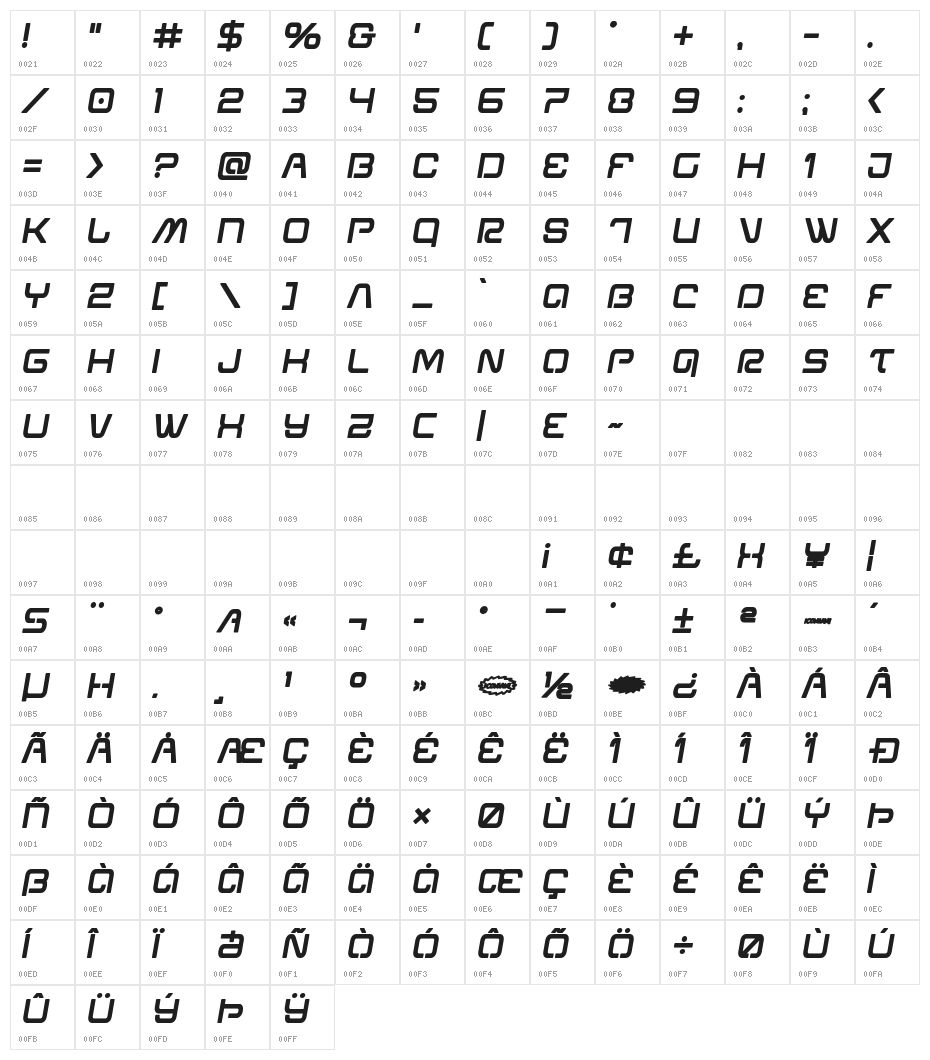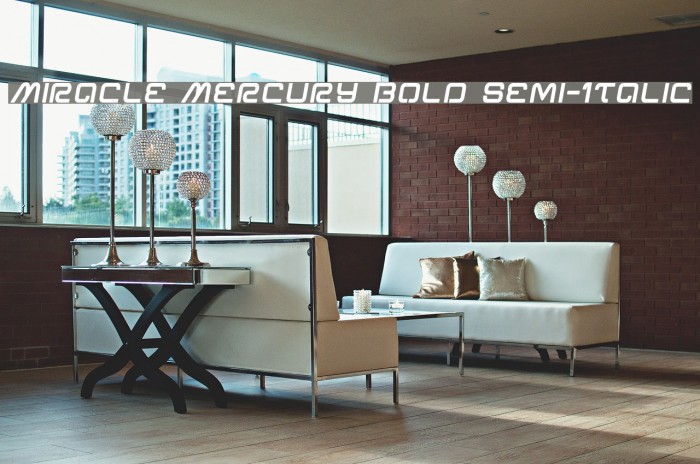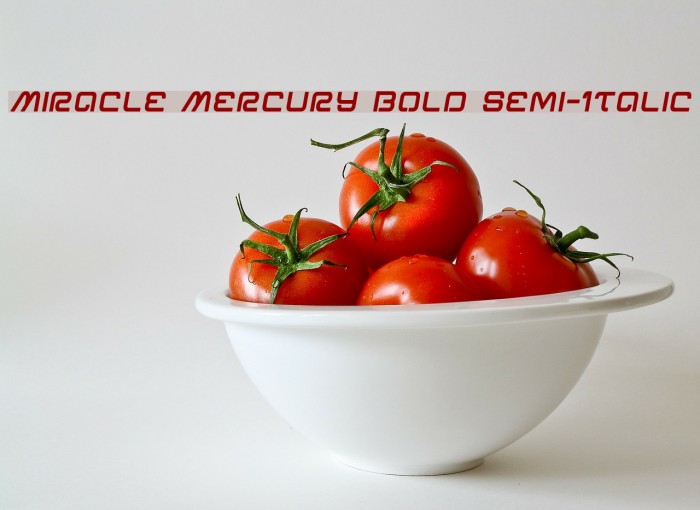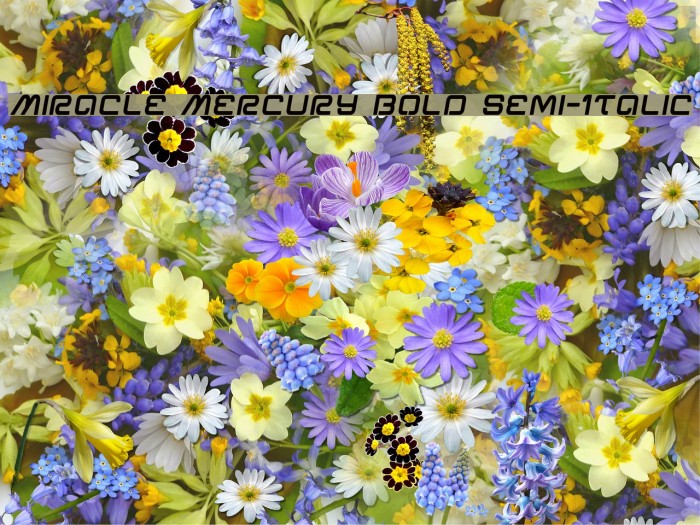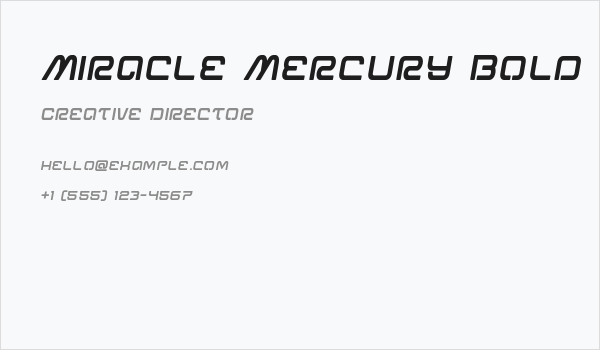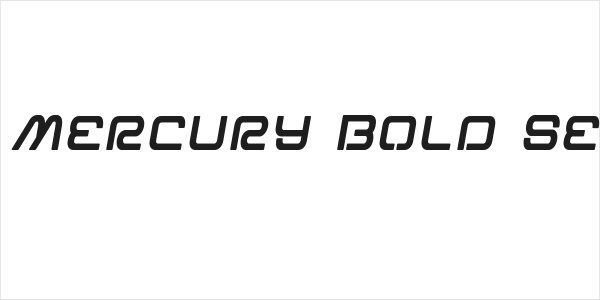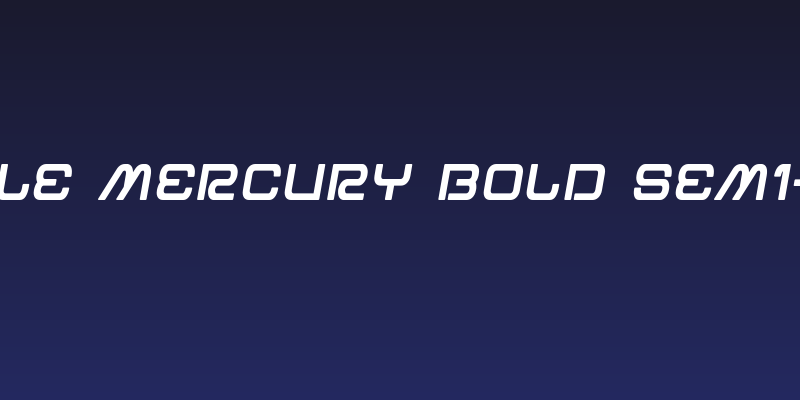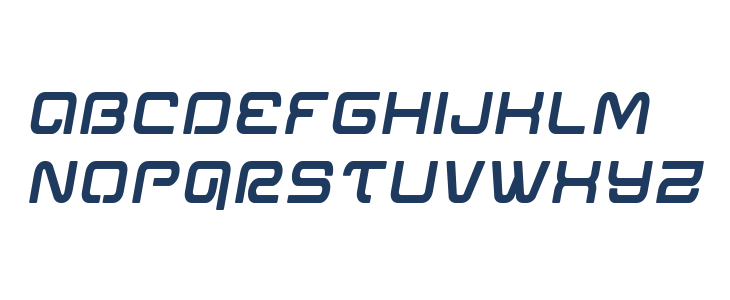
Miracle Mercury Bold Semi-Italic Font
Miracle Mercury Bold Semi-Italic Description
This font features a bold and semi-italic style with a modern, futuristic aesthetic. The characters are designed with a unique geometric structure, incorporating rounded edges and a slight slant that adds a dynamic feel. The uppercase and lowercase letters maintain a consistent style, while the numerals and special characters complement the overall design. The font's boldness ensures strong visibility, making it suitable for impactful headlines and attention-grabbing designs. Its semi-italic nature adds a touch of elegance and movement, enhancing its versatility for various creative projects.
| Overall Style | Futuristic, Dynamic |
| Proposed Projects | Ideal for futuristic branding, tech-related projects, sports team logos, and dynamic advertising campaigns. |